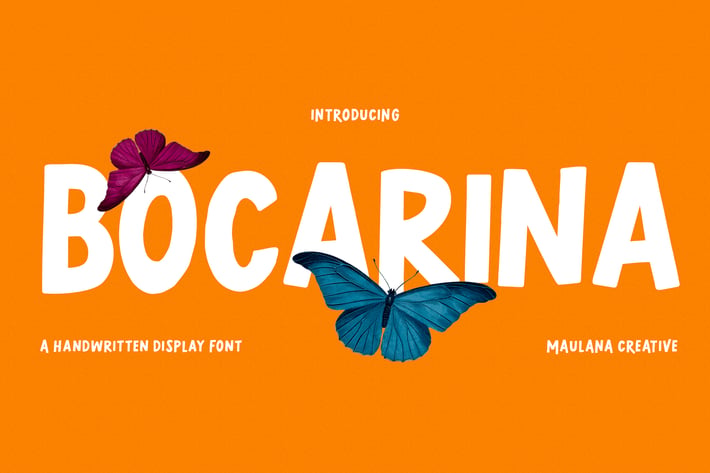
Bocarina Handwritten Display Font
Bocarina is a Bouncy quirk sans handwritten font. With bold contrast stroke, fun character with a bit of ligatures. To give you an extra creative work. Bocarina font support multilingual more than 100+ language. This font is good for logo design, Social media, Movie Titles, Books Titles, a short text even a long text letter and good for your secondary text font with sans or serif. Make a stunning work with Bocarina font.